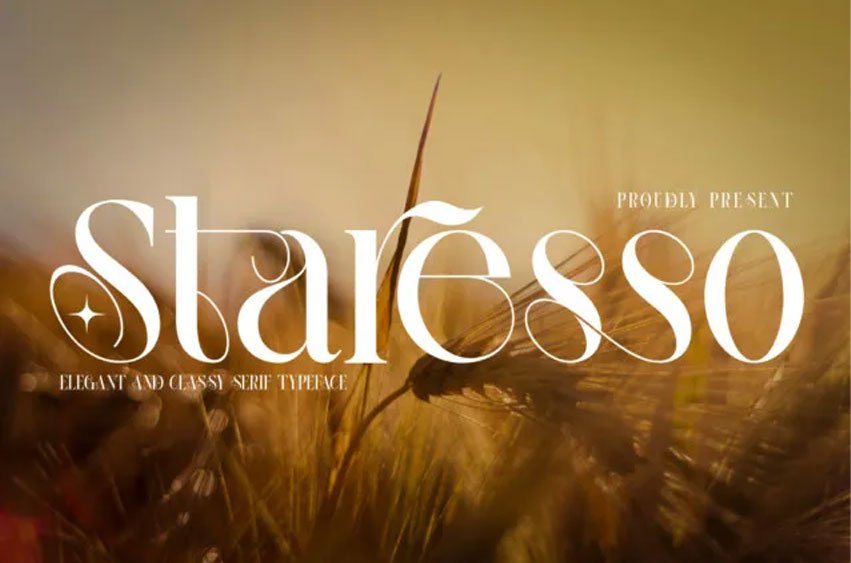
Staresso Font inspired by the famous minimalist logo. Trendy, elegant, luxury, creative & modern style serif font for your new fancy projects. Perfect for the purposes of designing templates, brochures, videos, advertising branding, logos, invitation, layout design, elegant crafting, beauty design and more. Lot of ligatures will help you to create unique and original logo design or website header! Enjoy
Staresso was built with OpenType features and includes 100 ligatures, alternate, numbers, punctuation, and it also supports other languages.
ac ad al an ar as at au av be ca ce ch co ct de di ea ec ed ee el em en ep er es et fe fo fr ge ha he hi ho ie ic il in io ir is it ju ke la le li ll lo ly ma me mi nc nd ne ng no nt ns oc of om on oo op or ot ou ow pa pr ra rd re ri ro rs rt se sh si so ss st ta te th ti to tr tt um un ur ve wi wo